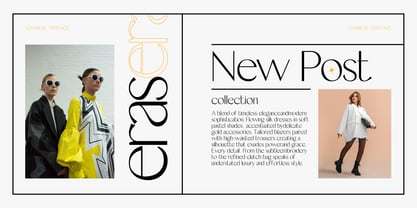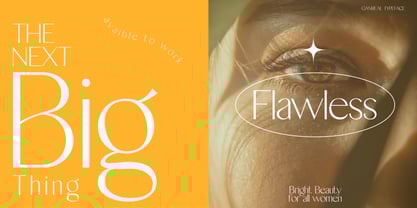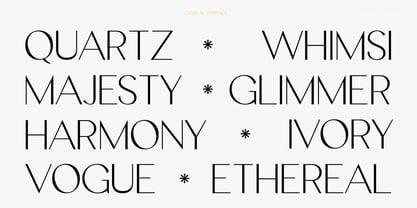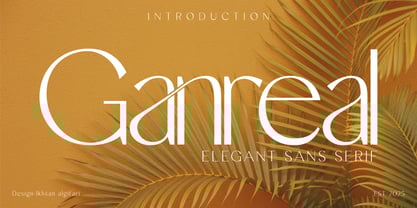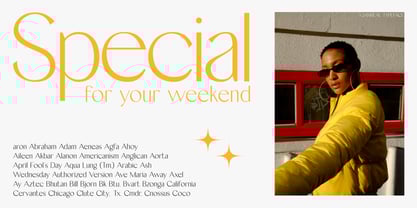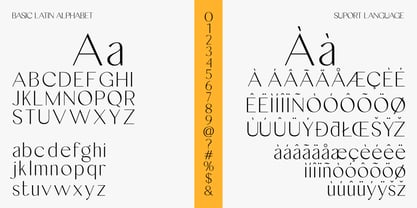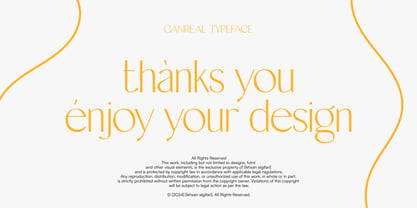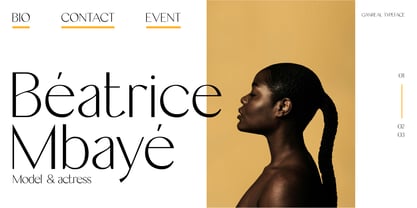
Ganreal
by Gifari
The Ganreal Font Family was designed by Ikhsan Algifari and published by Gifari. Ganreal contains 1 styles.
This is a refined sans-serif typeface designed to embody elegance and modern simplicity. Its clean lines and balanced proportions create a timeless aesthetic, making it ideal for high-end branding, editorial designs, and sophisticated visual identities. Perfect for those seeking a blend of minimalism and style
Designers: Ikhsan Algifari
Publisher: Gifari
Foundry: Gifari
Design Owner: Gifari